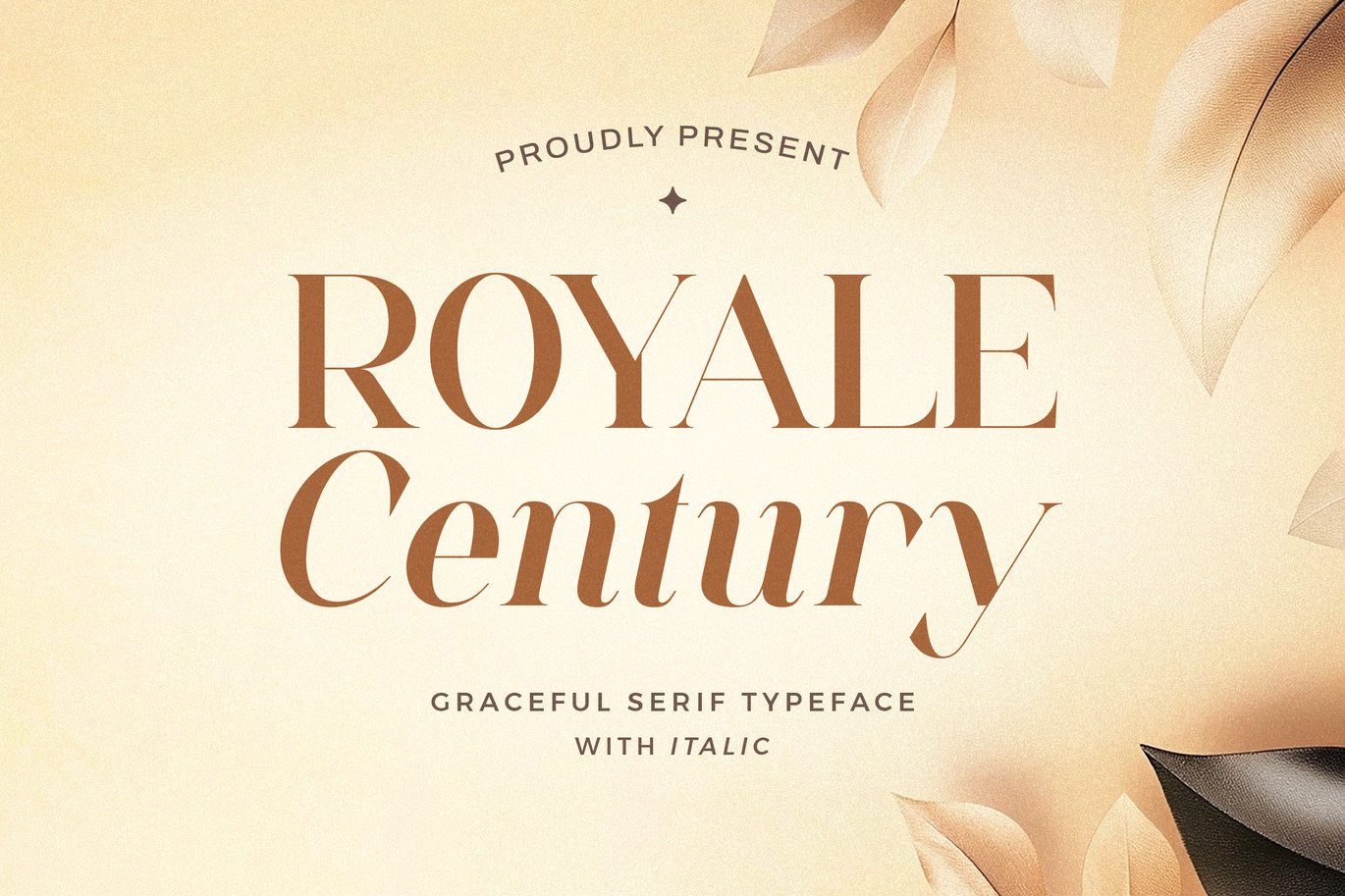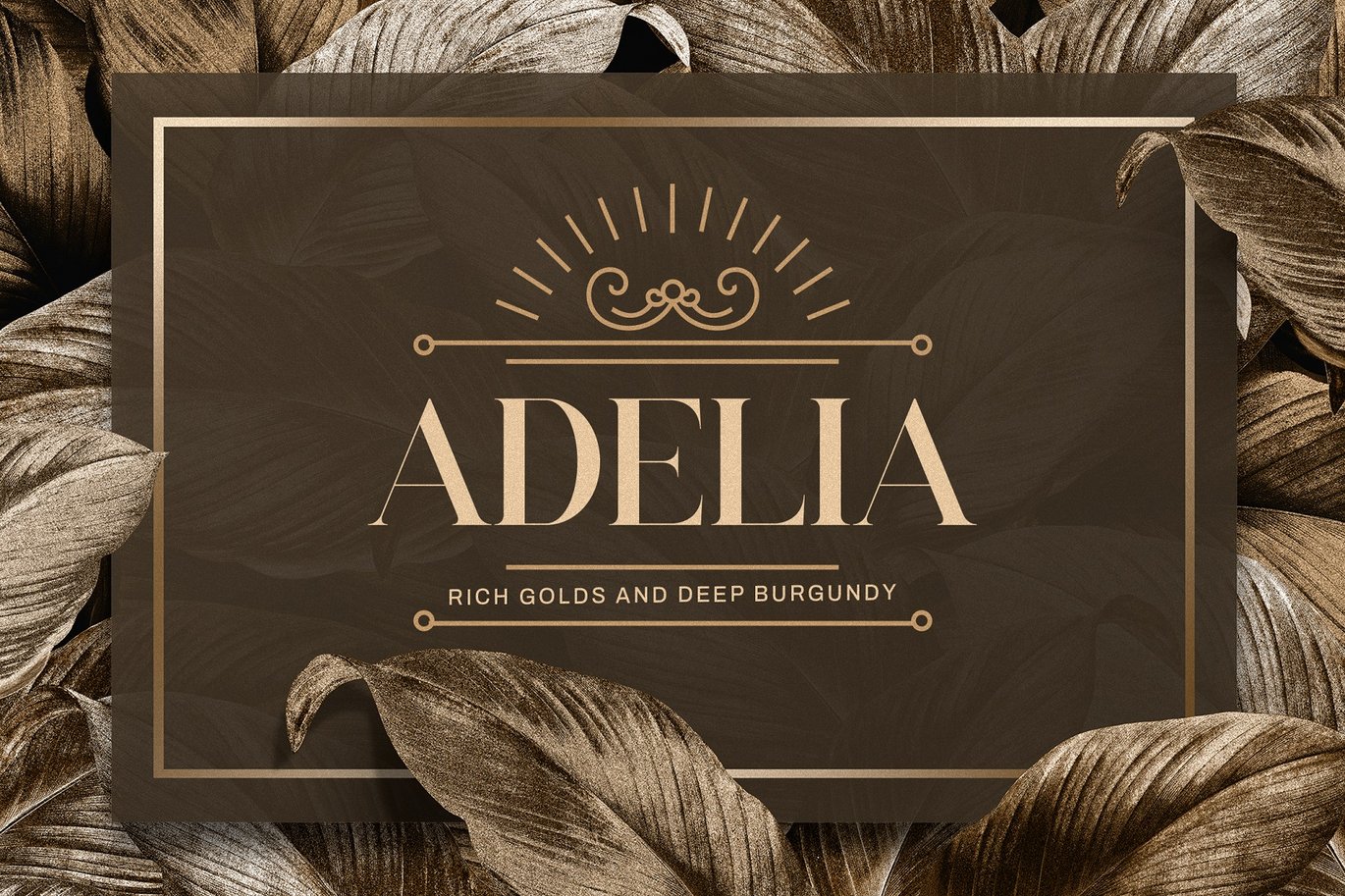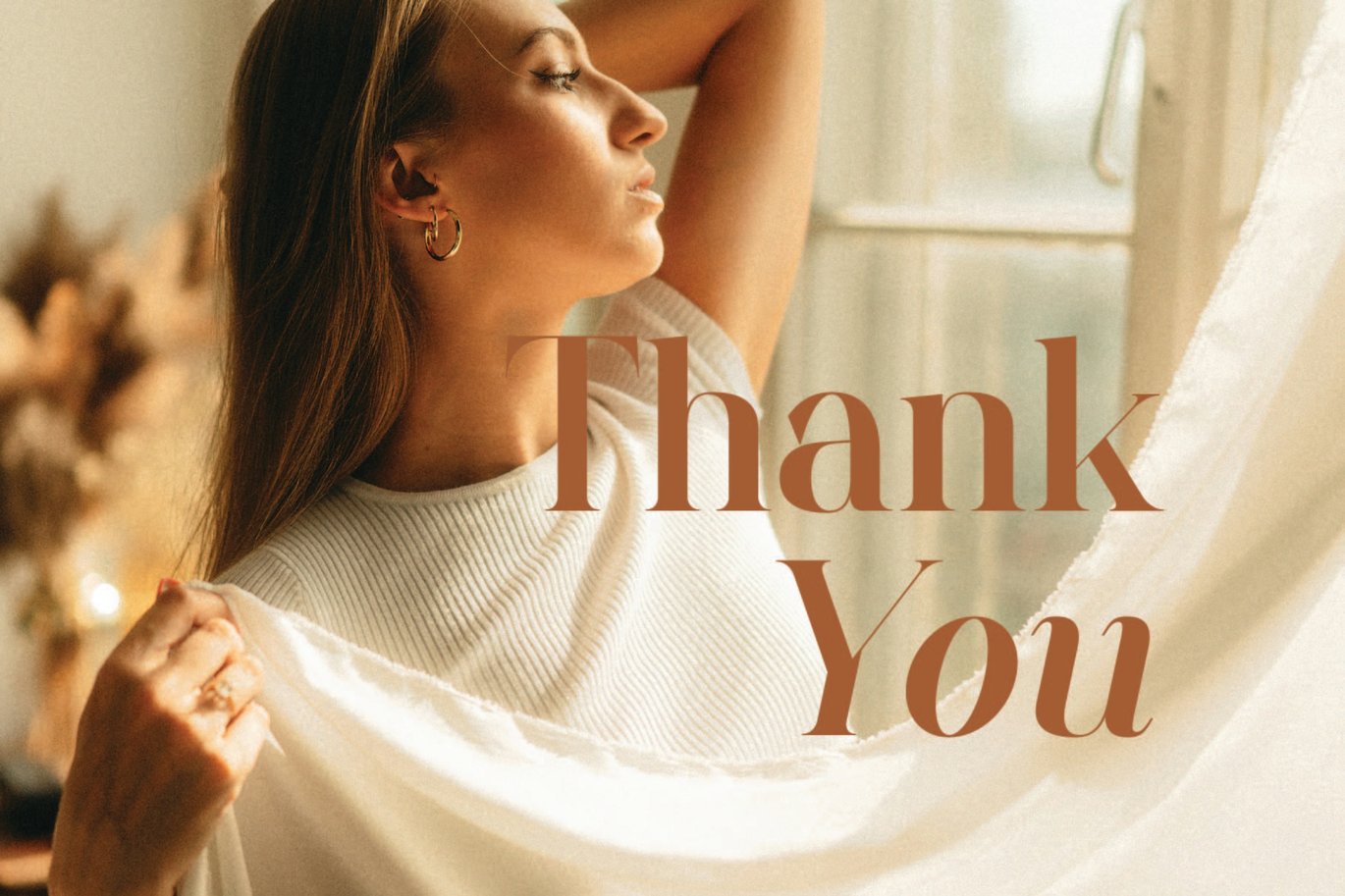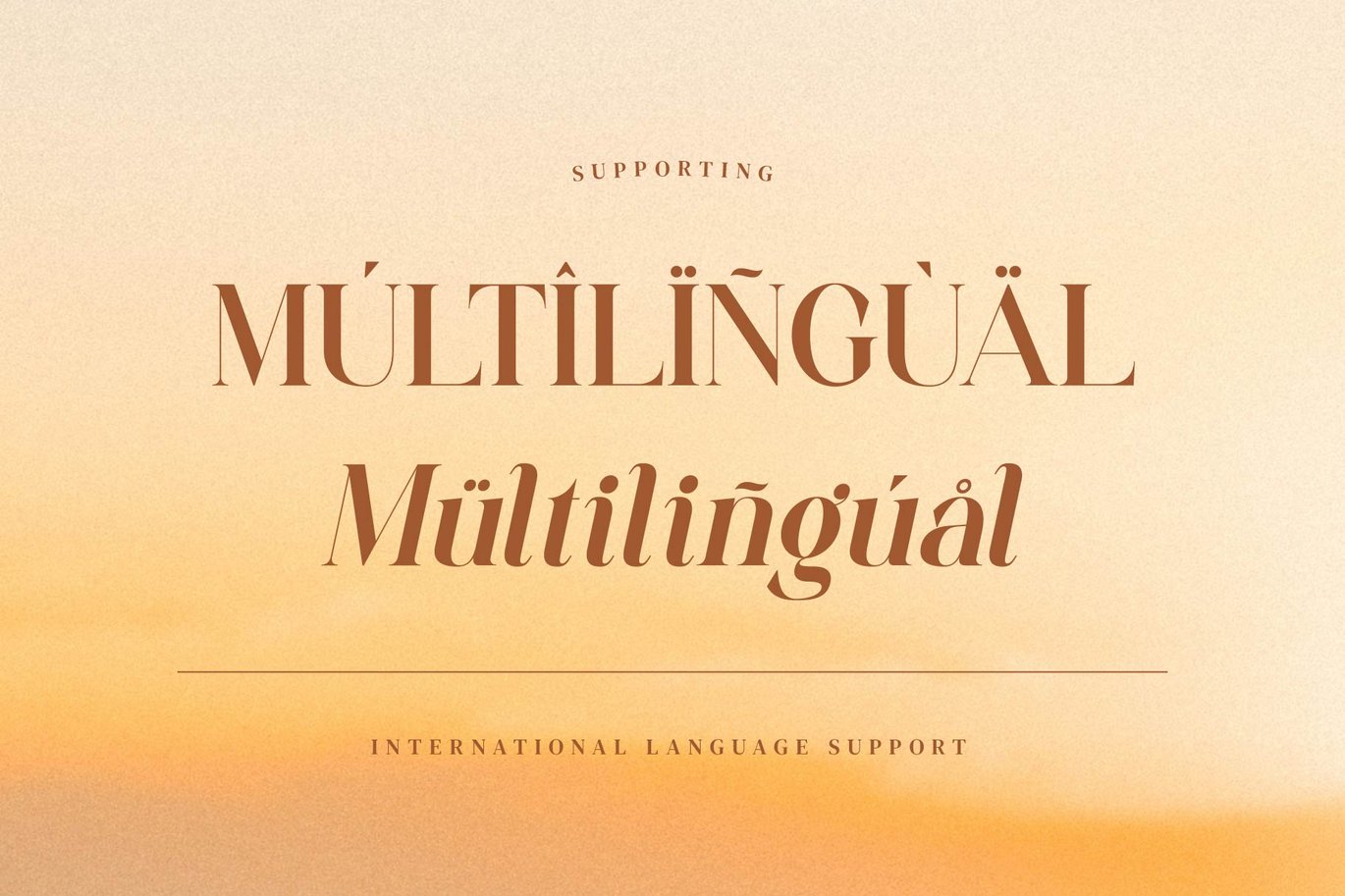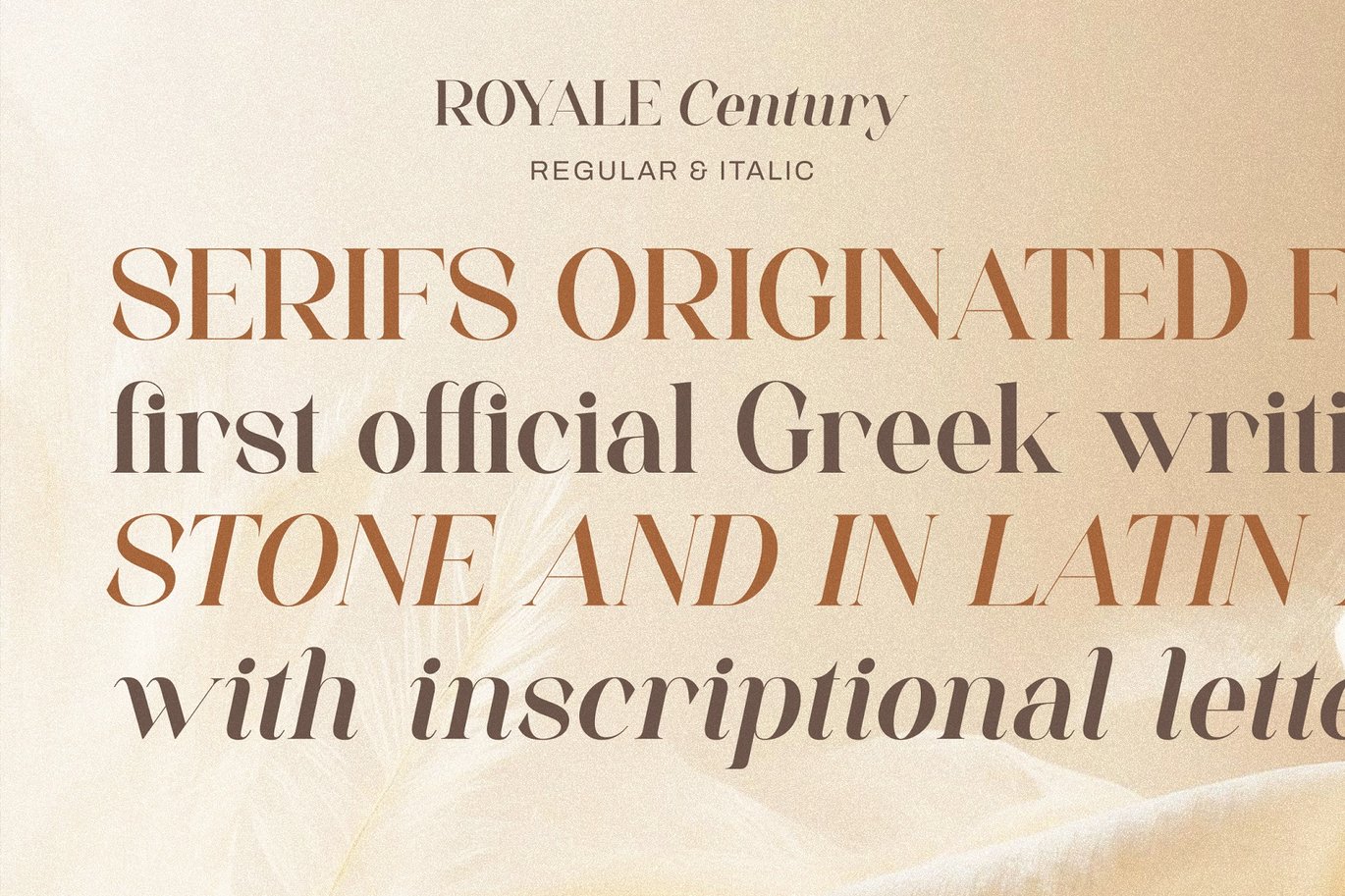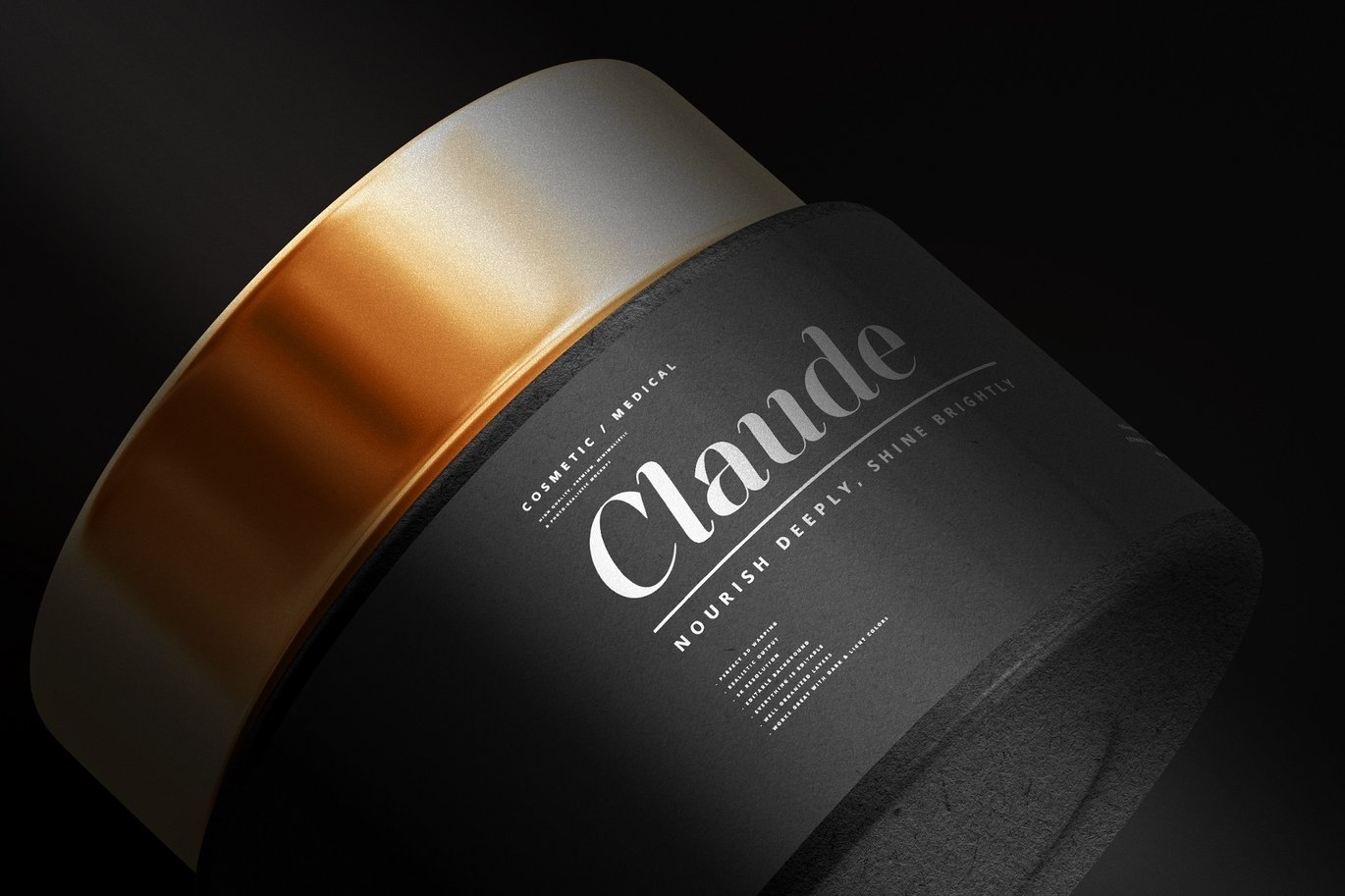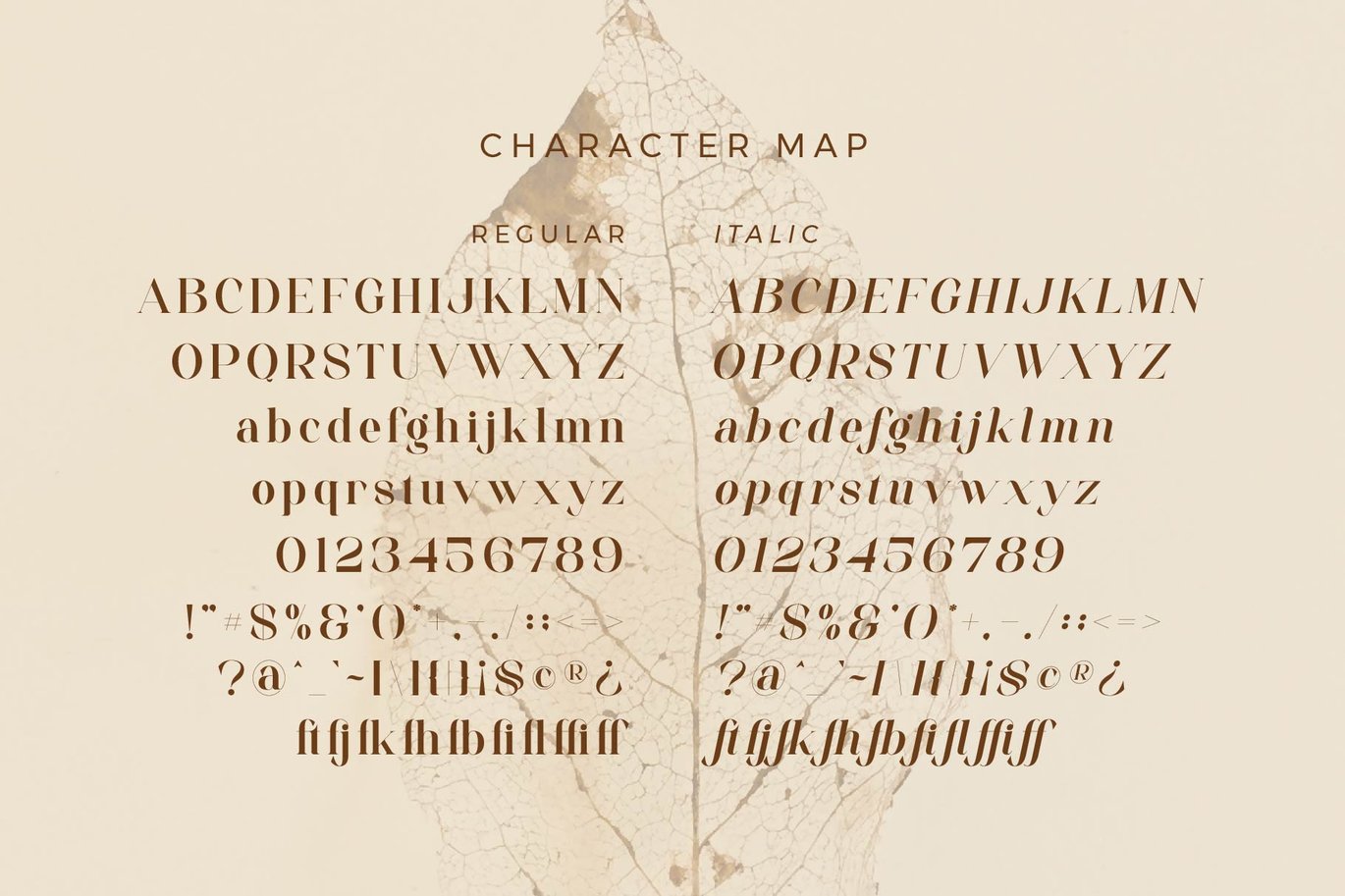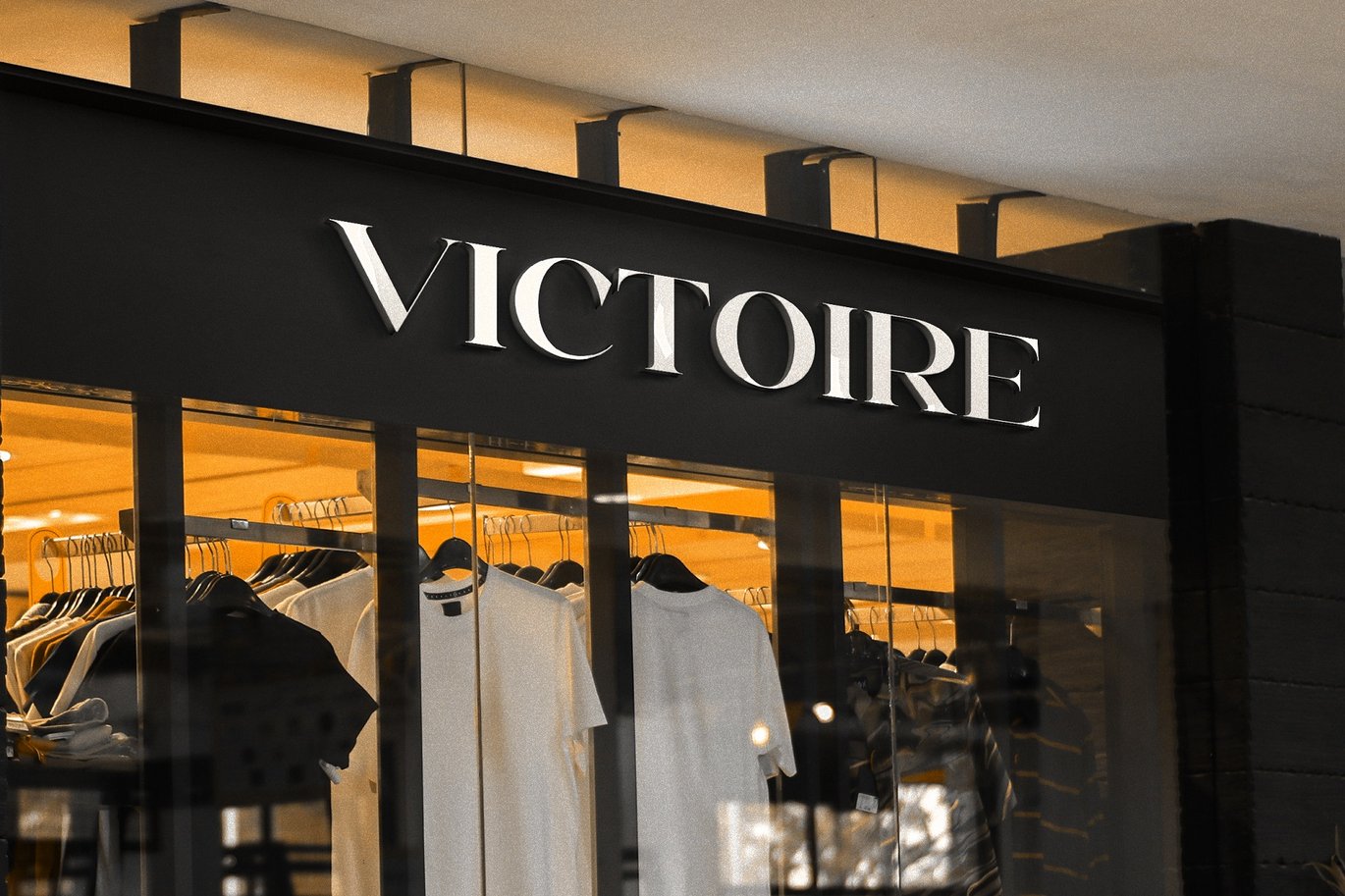
Royale Century Graceful Serif Font
Royale Century Stylish Ligature Typeface, inspired by the famous minimalist logo perfect for the purposes of designing templates, brochures, videos, advertising branding, logos and more.
- International Accent